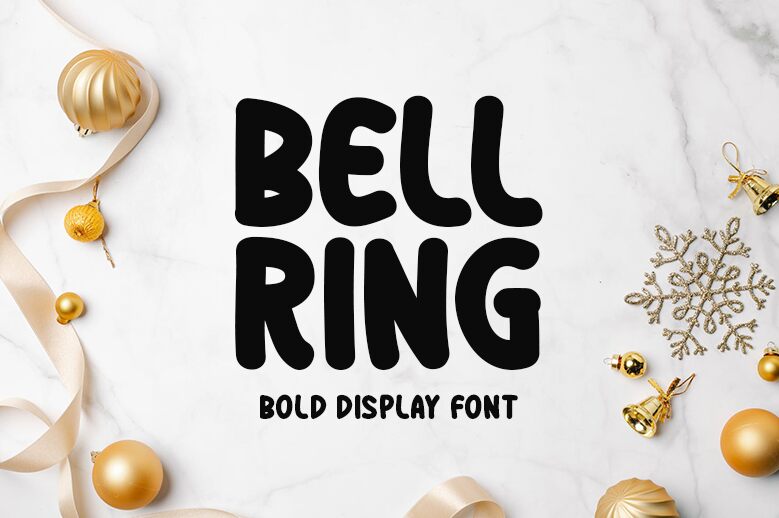
Bell Ring font family designed by Md Shohail Bhuian is made out of 2 font styles with a cheerful handwritten style inspiration. The family is informal, friendly, approachable, and overall joyful. The font letters combine traditional styles of handwriting with a modern casual feel. Wordmarks, headings, subheadings, or whatever they are used for, texts will grab attention with their inviting and warm vibes.